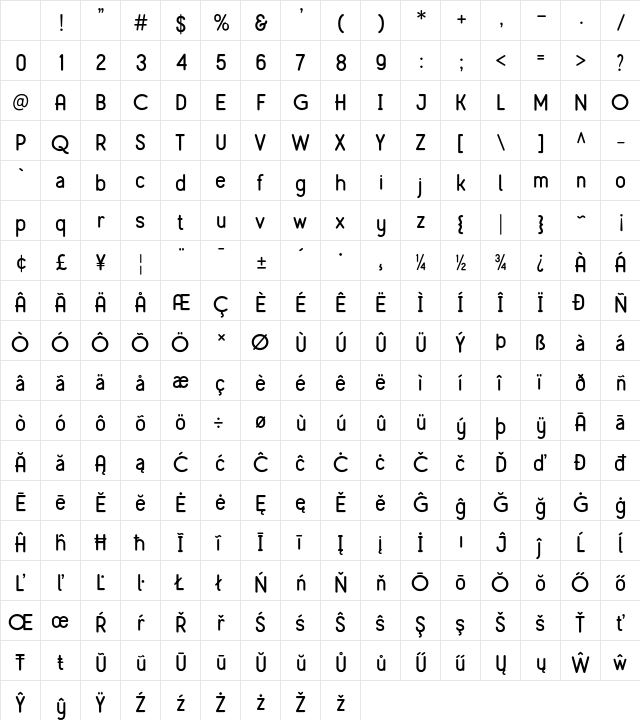
Complete Mirandah Normal Regular glyph index. Displaying only characters natively supported by Mirandah Normal Regular font.
Mirandah Normal is a composed and adaptable typeface that performs quietly and consistently across a wide range of design contexts.